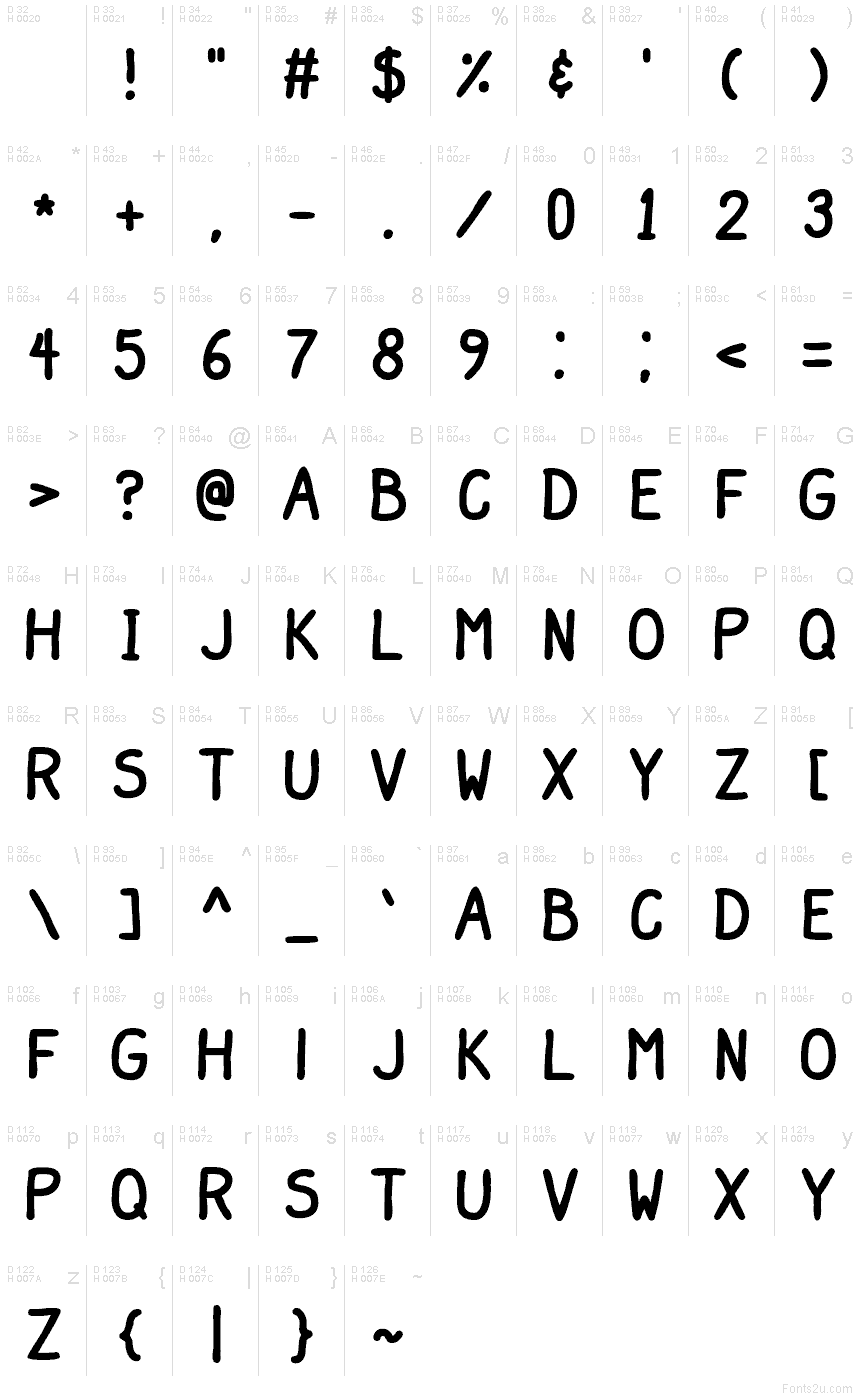
Maderns Comic
Maderns Comic font by Madern Omden is a playful and cartoon-inspired font with a distinctly hand-drawn aesthetic. The display font presents an irregular line structure that adds to its informal and fun expression. Its entertainment value lies in the illusions of movements it brings to design projects alongside the lively feel which authentic comic fonts are known for.
Comic books, casual branding projects, kids’ illustrations, children’s book covers, posters, signage designs, packaging designs for children’s products or toys are some of the many applications this free display font can be used for. Almost all contemporary design projects that require audiences’ immediate attention can use this tool as well.
This is the self-made font featured in Madern Omden's comics.